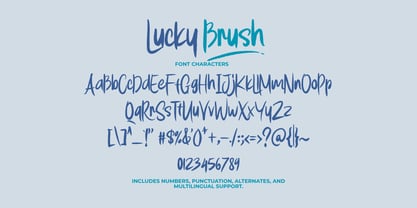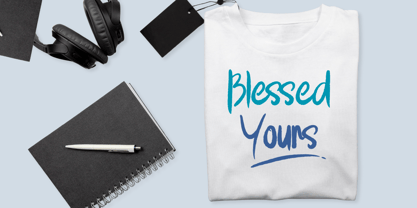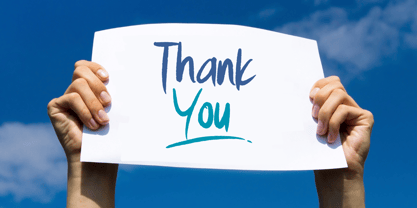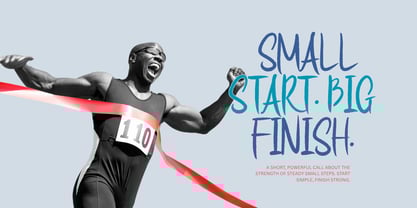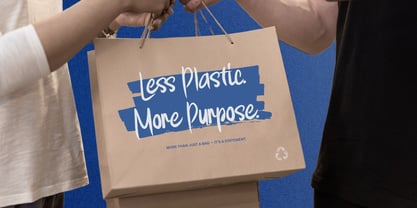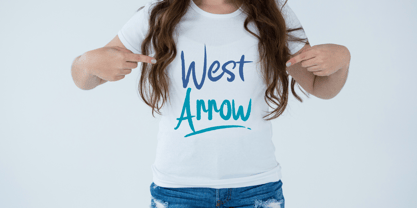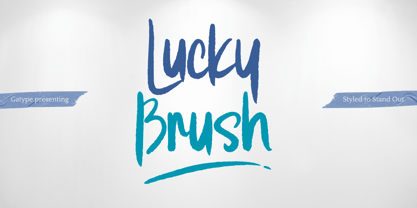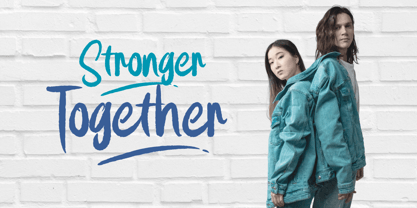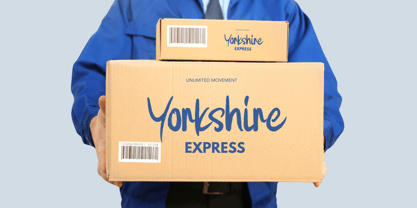
Lucky Brush
by Gatype
The Lucky Brush Font Family was designed by khaidir and published by Gatype. Lucky Brush contains 1 styles. More about this family
Lucky Brush is a bold and energetic script font with the raw charm of hand-painted strokes. Perfect for headlines, branding, posters, and anything that needs a punch of personality. With its dynamic flow and natural texture, Lucky Brush brings every word to life — loud, confident, and full of attitude.
✅ What’s Inside Lucky Brush:
• Bold uppercase & flowing lowercase
• Handy numbers & punctuation for versatility
• Full multilingual support to speak your style
• Loads of alternates & swashes for custom flair
Designers: khaidir
Foundry: Gatype